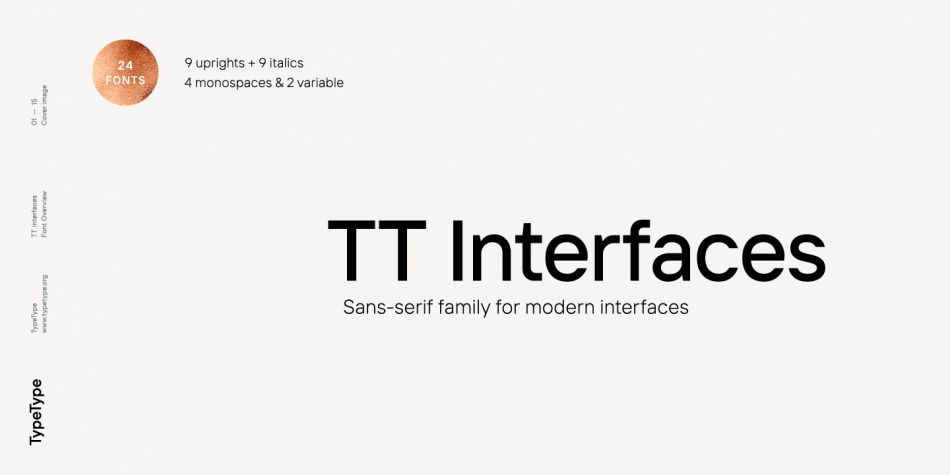
TT Interfaces Font
TT Interfaces Font is perfect for user interface design, digital product branding, tech startup identities, mobile app typography, web platform communications, software documentation, dashboard design applications, and modern digital advertising campaigns. This optimized typeface works exceptionally well across all digital platforms and screen applications where interface clarity and user experience are paramount design considerations.
What makes TT Interfaces Font so exciting is its meticulous optimization for digital interfaces through precisely engineered letterforms that ensure crystal-clear readability across all screen sizes and resolutions while maintaining distinctive personality. The font features clean characters with interface-optimized proportions, pixel-perfect spacing, and systematic construction that guarantees exceptional performance in user interface environments. Its digital-native personality and interface heritage make it ideal for brands seeking to establish credibility in technology sectors while creating seamless user experiences that prioritize both functionality and aesthetic appeal.
The TT Interfaces Font family includes comprehensive weight variations from thin to black, along with matching italic styles and interface-specific alternates. Each style maintains the typeface's digital character while offering extensive multilingual support, interface-optimized numerals, screen-focused punctuation marks, and special symbols designed to enhance digital communications and technology branding efforts across global software markets and diverse platforms.
This remarkable typeface represents the perfect convergence of interface design principles and contemporary typography for technology and digital industries. Whether you're developing software product identities, creating user interface systems, or designing digital platform communications, TT Interfaces Font Free Download delivers the interface reliability and versatility needed for successful digital experiences. The font's interface-focused design makes it particularly effective for software companies, app developers, UX design agencies, and organizations prioritizing optimal user interface performance and digital accessibility.
The expertly crafted interface optimization and superior screen rendering in TT Interfaces Font ensure exceptional digital performance while maintaining clear communication across all devices and applications. Its systematic design allows seamless scaling from small interface elements to large branding applications, making it an essential tool for designers creating cohesive digital experiences that prioritize both user functionality and professional visual quality in today's interface-driven world.